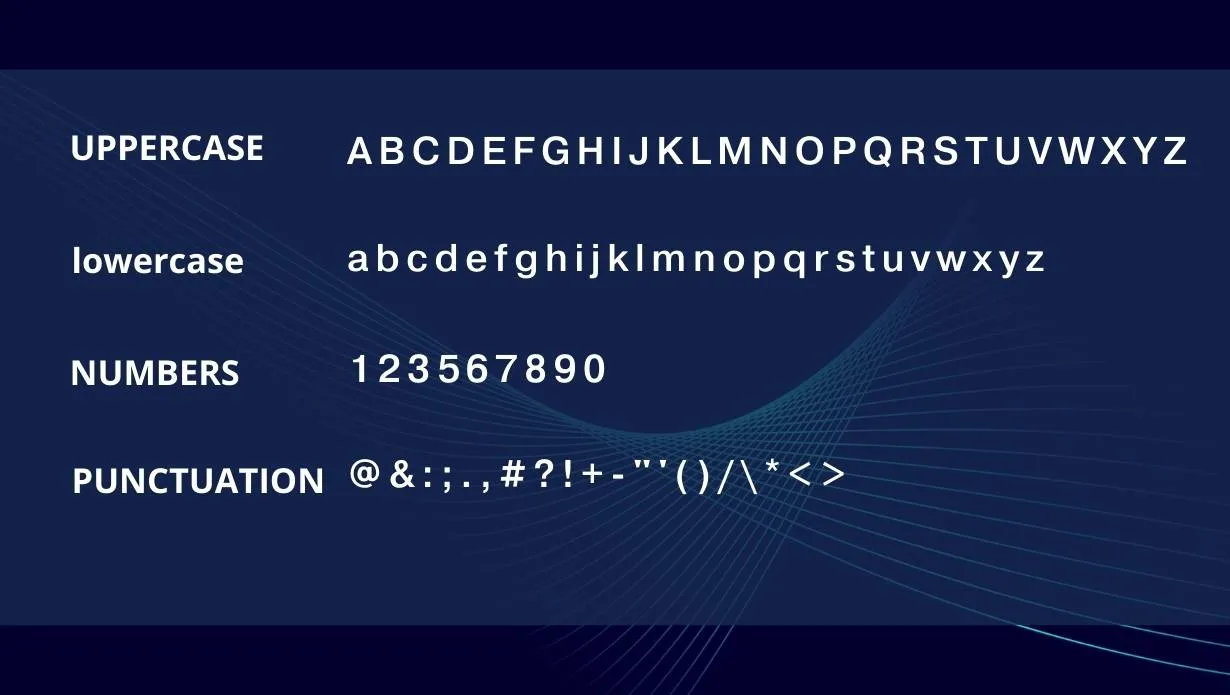
Pragmatica Font is a stylish typeface that belongs to the Sans- Serif Font family. This typeface was constructed by the combined hard work of Manvel Shmavonyan, Olga Chaeva, Alexander Tarbeev, Vladimir Yefimov, and Vladimir Andrich from Paratype Foundry.
View of Pragmatica Font